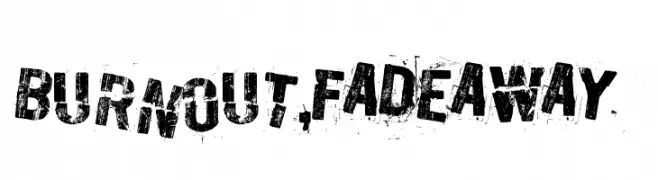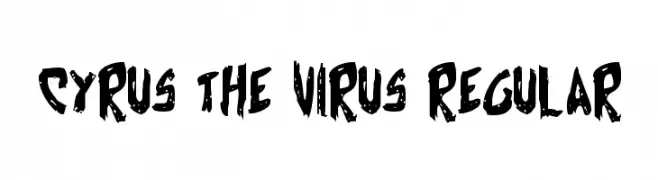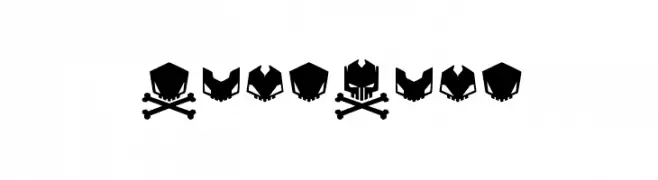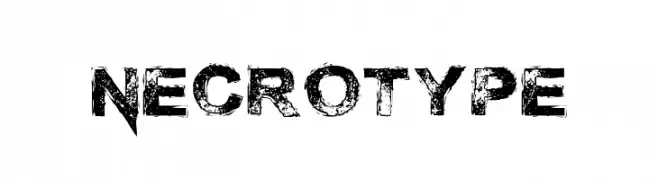
A bold, distressed font with a grunge aesthetic and intricate patterns.
A rugged, distressed font with a gritty, urban feel.
A bold, graffiti-inspired font with angular, geometric shapes and a rebellious edge.
A distressed, grunge-style font with bold, textured characters.
A bold, distressed grunge font with a rugged, worn-out appearance.
A bold, decorative font with skull and crossbones motifs.
A bold, distressed font with a rugged, grunge aesthetic.